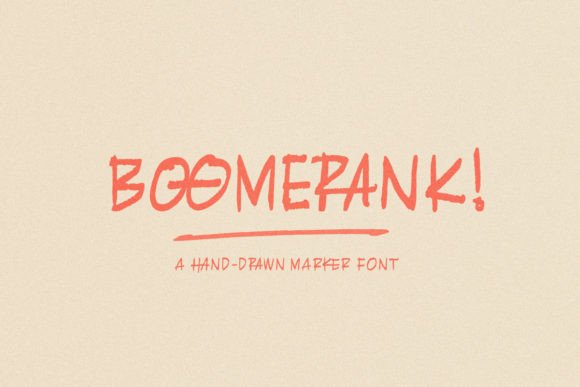
The Boomerank Font: A Creative Dry Marker Handwriting Font for Your Design Projects
Have you ever been working on a design project, and suddenly, you’re stuck on finding the perfect font? I recall a recent experience where I was tasked with creating a playful, hand-drawn logo for a client’s craft business. The brief required a font that would evoke a sense of friendliness and approachability. That’s when I stumbled upon the Boomerank font, a creative dry marker handwriting font that perfectly captured the essence of the project.
An Honest Review of Boomerank Font
What I Love About Boomerank Font
• ✨ Unique dry marker effect that adds a personal touch to any design
• ✅ Perfect for a variety of projects, including logotypes, comics, headlines, invitations, and more
• 💫 Highly legible, even at smaller font sizes
• 🎨 Great for designs that require a natural, handwriting look
While Boomerank font is an excellent choice for many design projects, there are a few minor quirks to be aware of:
• 🤔 Some characters may appear a bit inconsistent in terms of letter spacing, which can be adjusted manually
• ⚠️ Limited availability of language support, mainly focused on English and some European languages
The Backstory of Boomerank Font
The Boomerank font was designed with the intention of capturing the imperfections and uniqueness of handwriting with a dry marker. The designer aimed to create a font that would be perfect for a variety of creative projects, from comics to branding. The result is a font that feels friendly, approachable, and full of character.
Q: What type of projects is Boomerank font best suited for?
A: Boomerank font is perfect for projects like logotypes, comics, headlines, invitations, quotes, menu design, branding, clothing, and print ads.